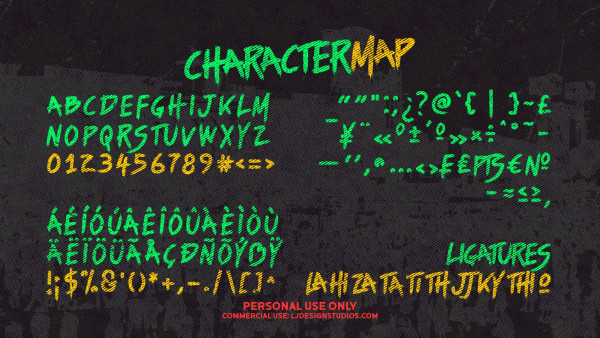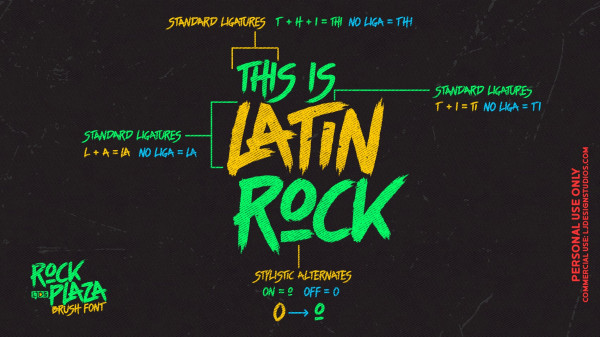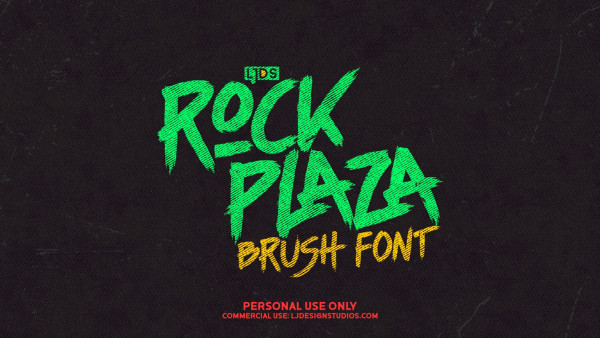
Rock Plaza Font
Rock Plaza Font is inspired by rock fever, it’s a grungy scruffy brush style and very energetic. Rock plaza font is created with the idea of giving more touch to Latin rock from Colombia, as a complementary typeface to Rocklife typography